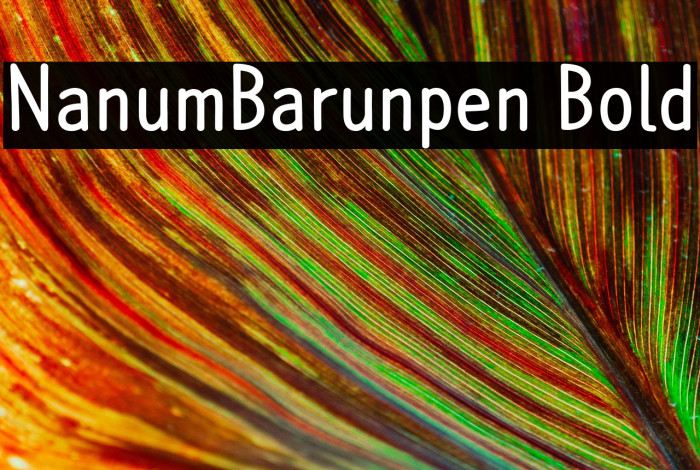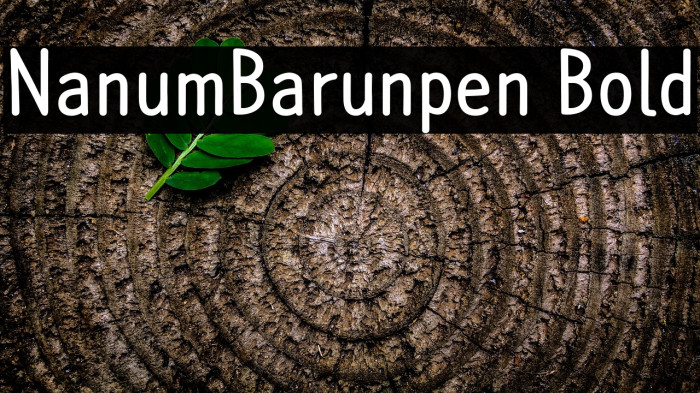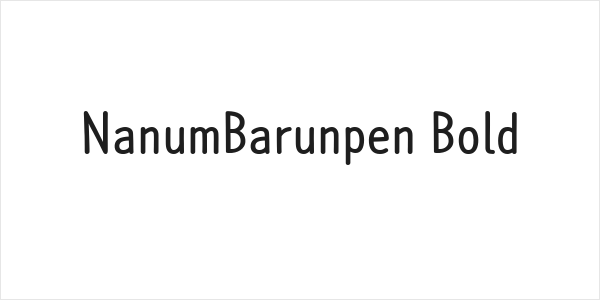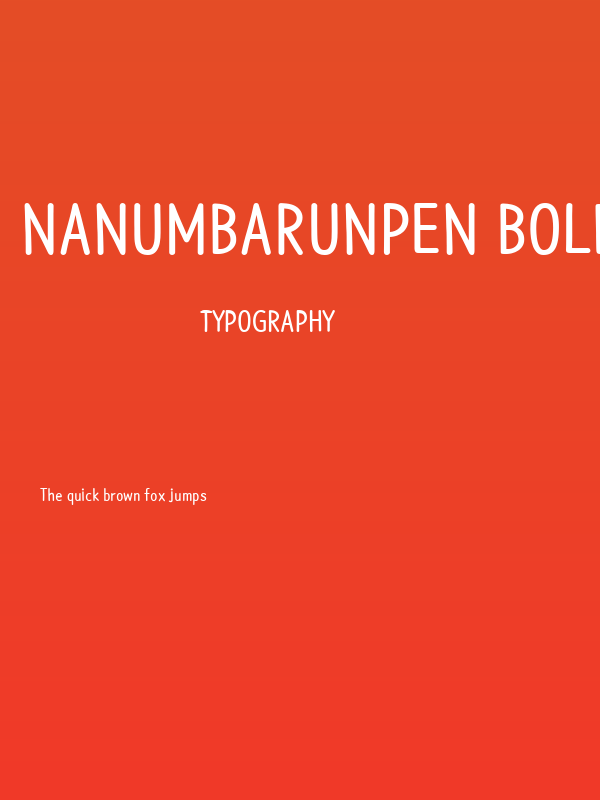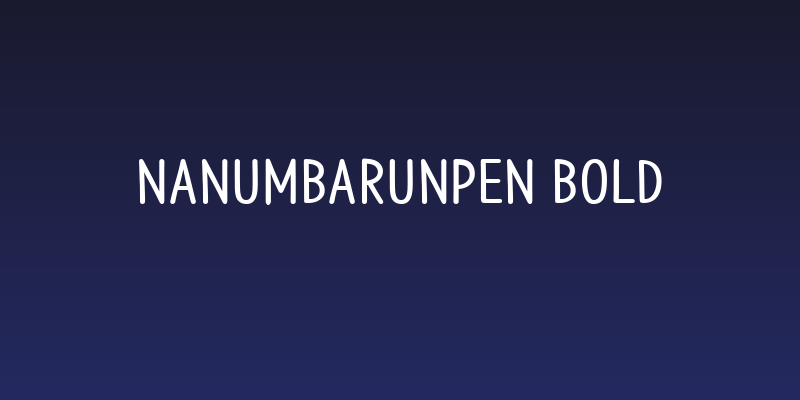
NanumBarunpen Bold Font
NanumBarunpen Bold Description
This font features a clean and rounded sans-serif style with a friendly and approachable appearance. The characters are evenly spaced, providing a balanced and harmonious look. The strokes are consistent in width, giving it a uniform and modern feel. The rounded edges soften the overall appearance, making it suitable for a variety of uses where readability and a welcoming tone are desired. The numerals and special characters maintain the same rounded and consistent style, ensuring a cohesive look across all text elements.
| Proposed Projects | Ideal for children's books, educational materials, websites, and branding that requires a friendly and approachable tone. |